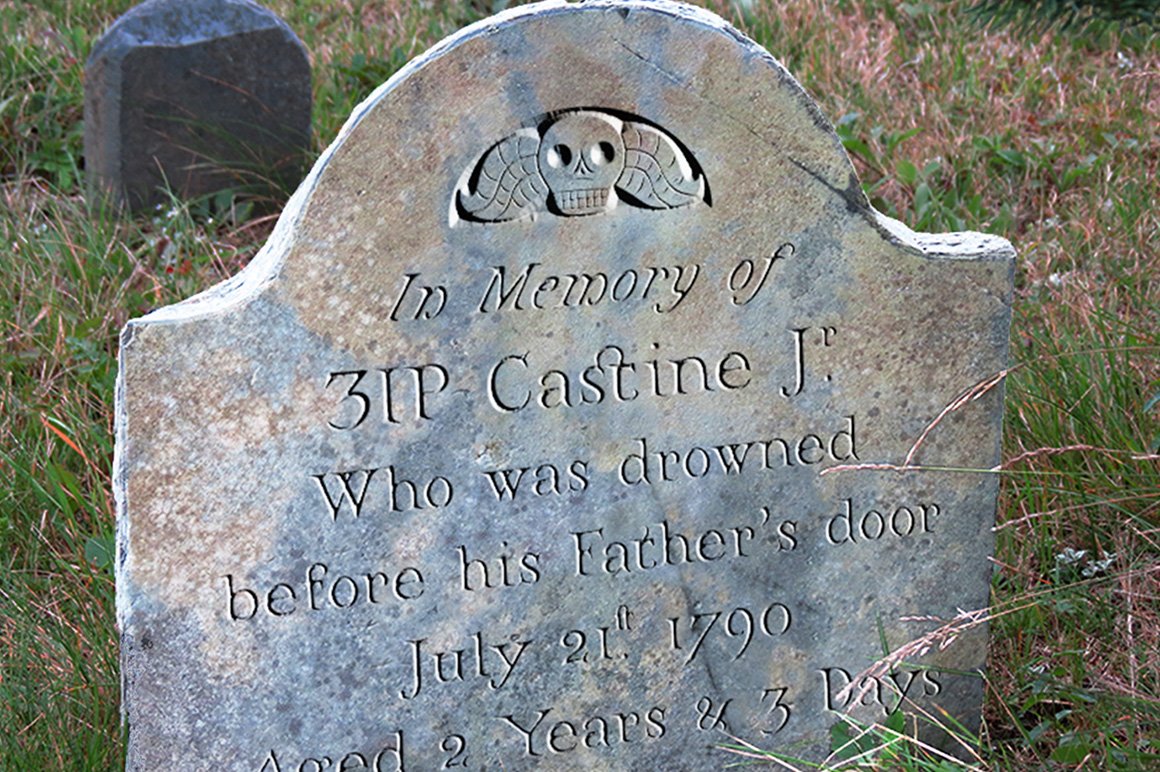
Castine™
There’s an old cemetery in Castine, Maine—a lovely coastal town with a surviving crop of stately American elms. Dating back into the 1700s, the cemetery’s headstones have the familiar old domed-tablet shape, some topped by winged skulls. Thanks to the Castine Historical Society, I got my hands on a couple of epitaph rubbings and modeled a typeface after the lost stone carving style peculiar to the time and place. Castine (the font) has a melancholy, wistful, nostalgic air—and is frankly just a little bit spooky. Its long, sharp serifs and slight uneveness recall simpler times when character meant more than precision. Castine has roman and italic styles.* (Check out the epitaphs.) $49 | Order  Buy old fonts
*The OpenType release of Castine™ adds numerous ligatures, old-style and lining figures, and Central/Eastern European alphabets.